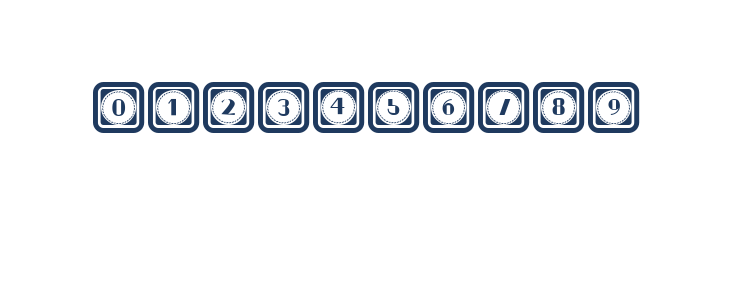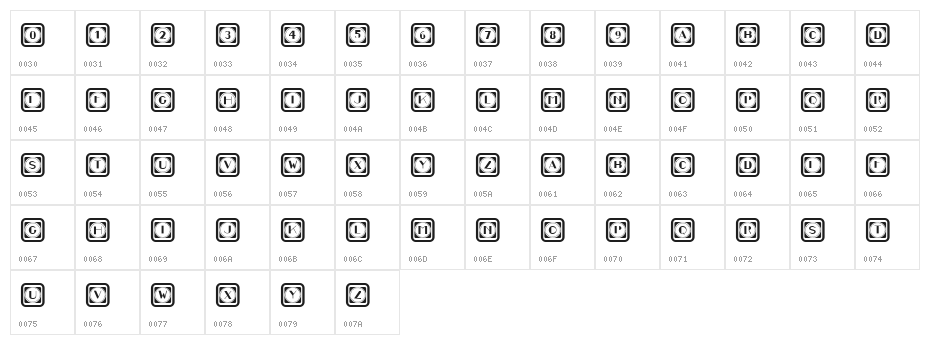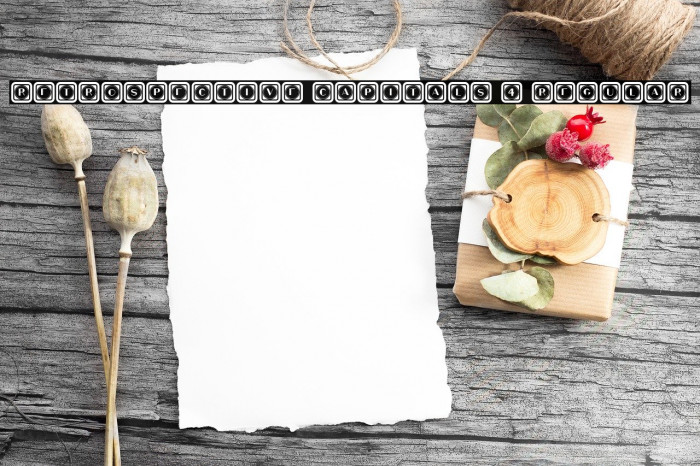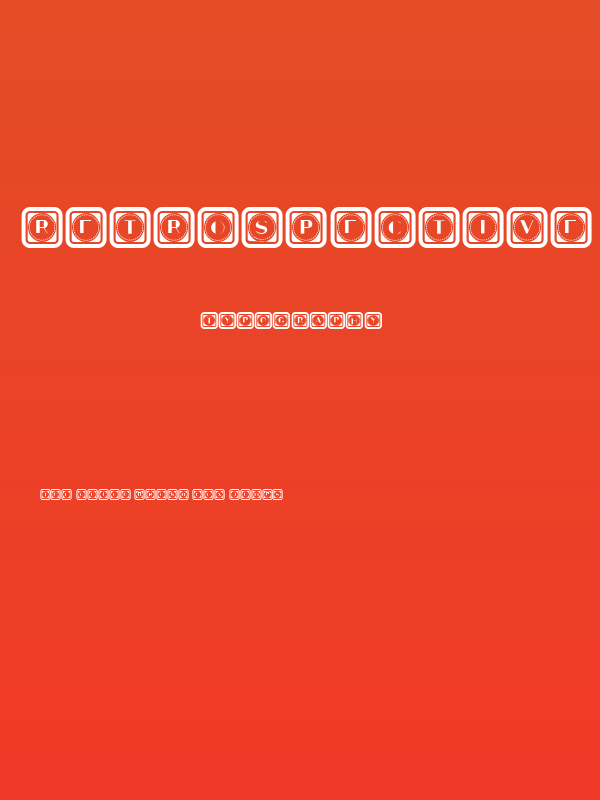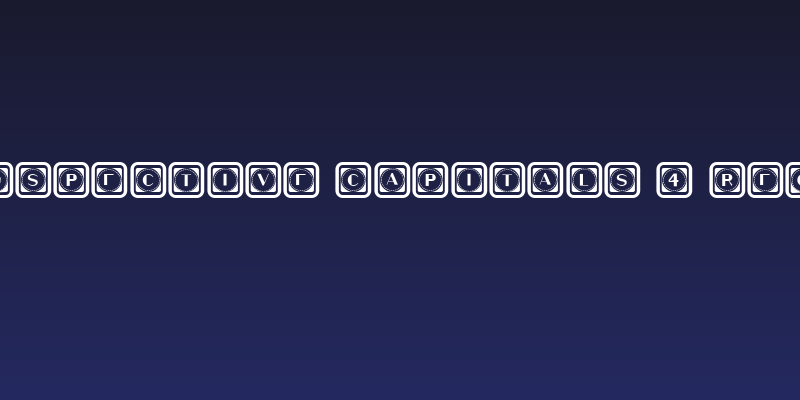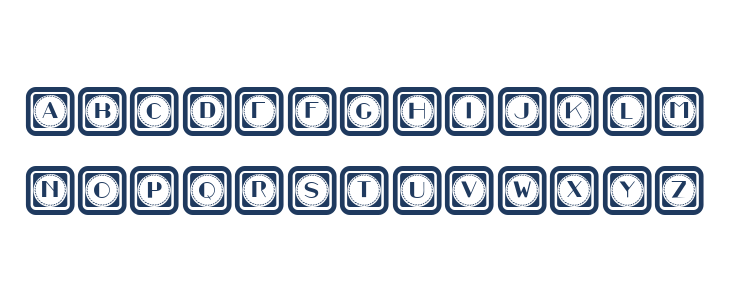
Retrospective Capitals 4 Regular Font
Retrospective Capitals 4 Regular Description
This font features a bold, decorative style with each character encased in a square with rounded corners. The letters and numbers are centered within these squares, creating a uniform and structured appearance. The characters themselves are sans-serif, with clean and straightforward lines, offering a modern yet retro aesthetic. The use of a double outline around each character adds depth and a three-dimensional effect, making the font stand out. The spacing between the characters is consistent, ensuring readability while maintaining the decorative aspect. This font is ideal for projects that require a vintage or retro feel, combined with a modern twist.
| Overall Style | Retro, Modern |
| Proposed Projects | Ideal for vintage-themed posters, retro branding, signage, and creative digital designs. |